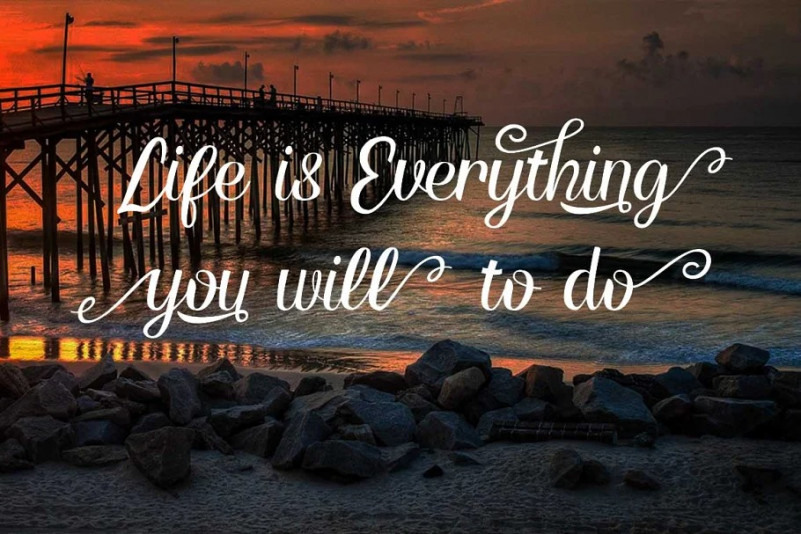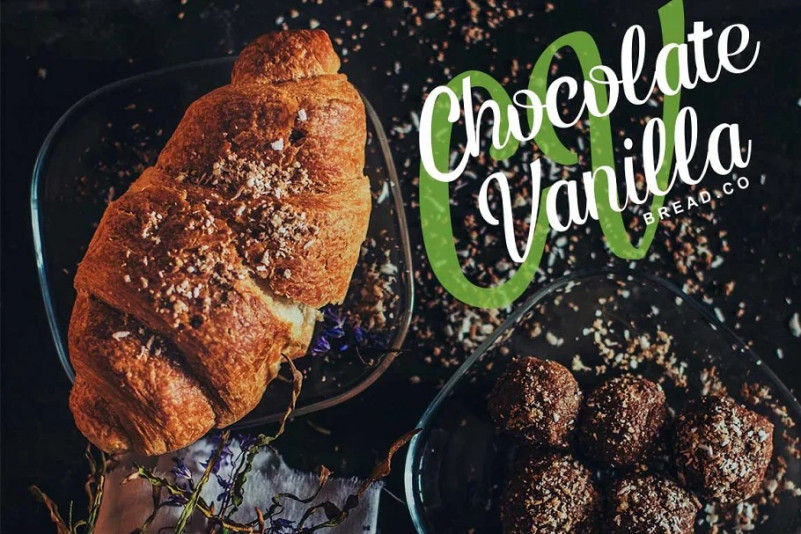
Swelly Script Font
Swelly feels equally beautiful and dainty. It looks ravishing on wedding invitations, thank you cards, quotes, greeting cards, logos, business cards and every other design which needs a handwritten touch.